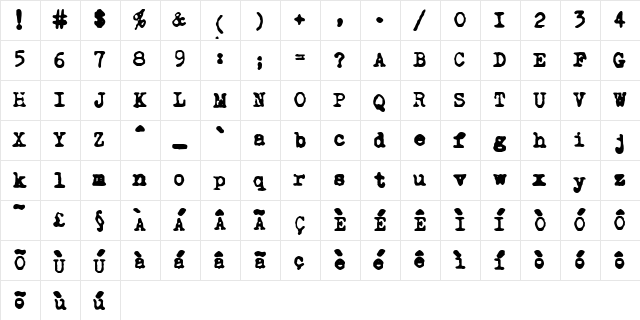
NoMore Typewriters Oh not again!
Design Context for NoMore Typewriters Typeface
NoMore Typewriters uses fixed-width spacing throughout, giving it the structured, systematic character associated with coding environments and technical documentation.